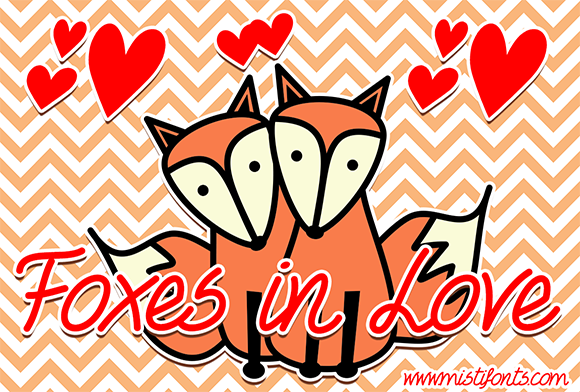
Foxes in Love Font
Behold, Foxes in Love Font: Where Love Dances on Every Letter!
In a world where love is often expressed through words, Foxes in Love Font emerges as a visual symphony of romance, transforming your designs into captivating expressions of affection.
A creation of the visionary Misti, this script font is an elegant dance of curves and loops, mirroring the whimsical movements of foxes caught in a whirlwind of love. Each character is a graceful stroke of passion, entwined with hearts and foxes, inviting you to weave tales of love and joy into your creative projects.
With Foxes in Love Font, you'll discover a myriad of opportunities to let your designs bloom with the beauty of romance:
- Elevate your wedding invitations with a touch of whimsy, letting the font's graceful curves reflect the joy of your union.
- Create enchanting logos and branding that capture the essence of love and passion, leaving a lasting impression on your audience.
- Design heartfelt greeting cards that convey your warmest wishes, adorned with the charming hearts and foxes that dance within the font.
- Craft unique social media posts and graphics that resonate with your followers, spreading love and positivity through every shared image.
- Unleash your creativity in crafting personal love letters, expressing your deepest emotions with a font that speaks the language of the heart.
Beyond its romantic charm, Foxes in Love Font is a versatile font, adapting seamlessly to a wide range of design styles. Whether you're creating whimsical illustrations, heartfelt posters, or eye-catching flyers, this font will effortlessly elevate your designs to new heights of beauty.
To unlock the full potential of Foxes in Love Font, simply type an underscore (_) for the hearts and a vertical bar (|) for the foxes, and watch as your designs transform into enchanting expressions of love.
So, immerse yourself in the romantic realm of Foxes in Love Font, where every character dances with passion, and every design tells a tale of love and joy. Let your creativity flourish as you embrace the beauty of this font, captivating hearts and spreading love with every stroke of your design.